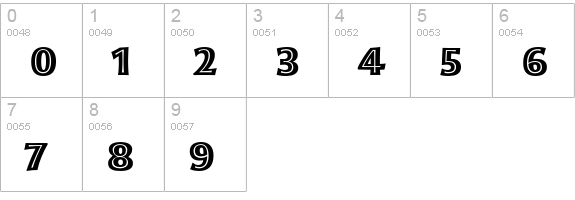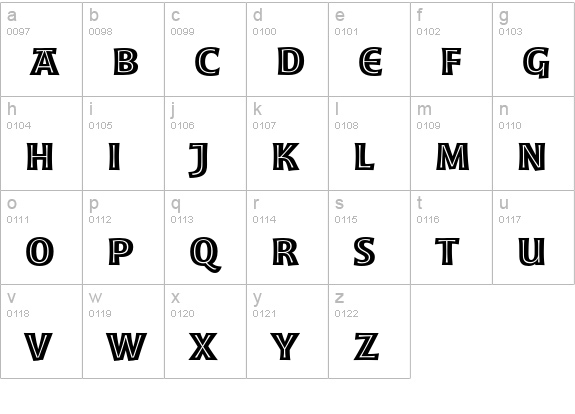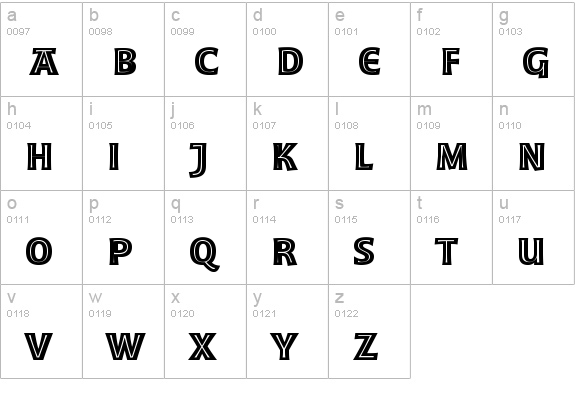
Moonglow Bold is a strong, high-contrast variant in the Moonglow typeface family \xE2\x80\x94 well suited to headlines, attention-grabbing titles, and strong calls-to-action.
Moonglow Bold font is a striking and elegant typeface that exudes a sense of sophistication and modernity. With its bold and distinctive letterforms, Moonglow Bold is perfect for making a bold statement in your design projects. This versatile font can be used for a variety of purposes, from branding and packaging to headlines and posters. The best part? Moonglow Bold font is available for free download at FontsMarket.com. Now you can add a touch of style and flair to your designs without breaking the bank. Don't miss out on this opportunity to elevate your projects with the sleek and stylish Moonglow Bold font. Download it today and let your creativity shine!